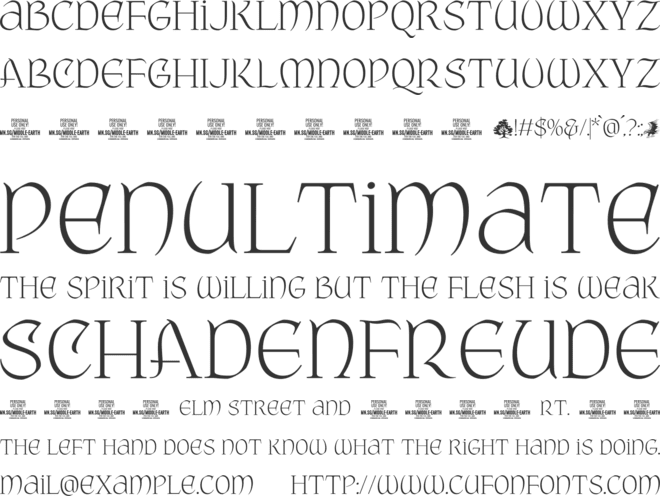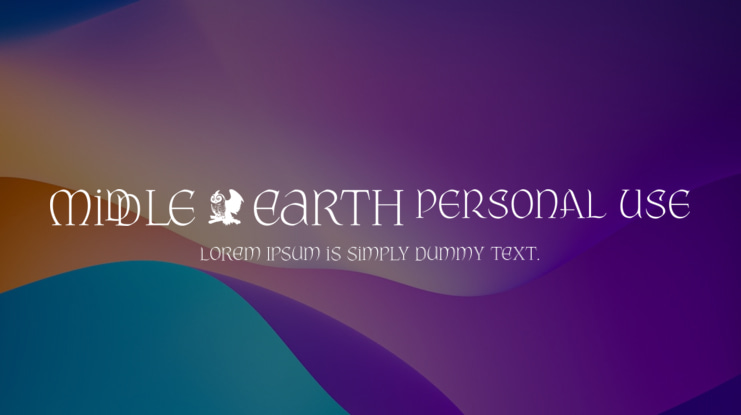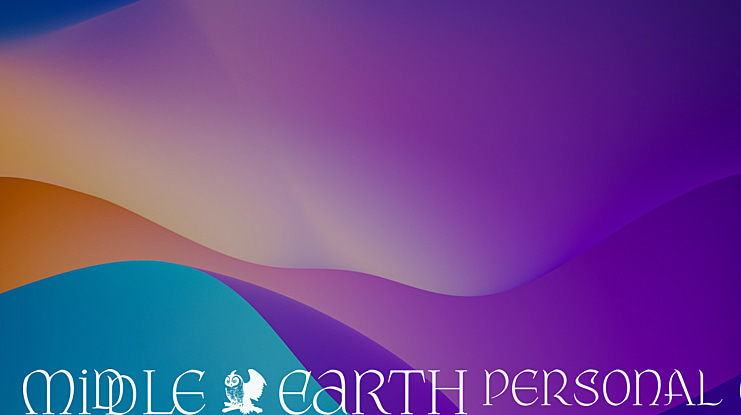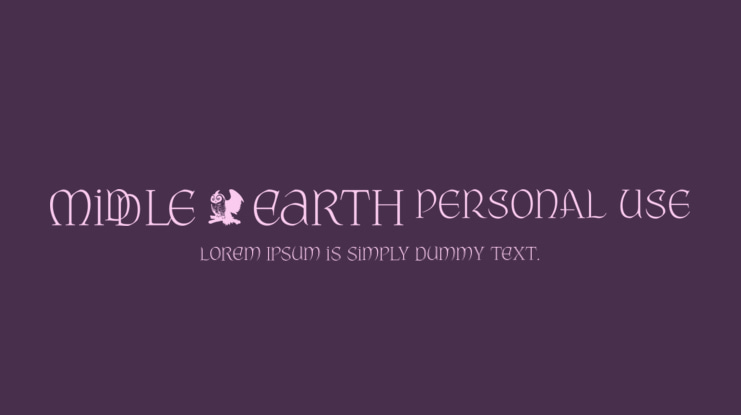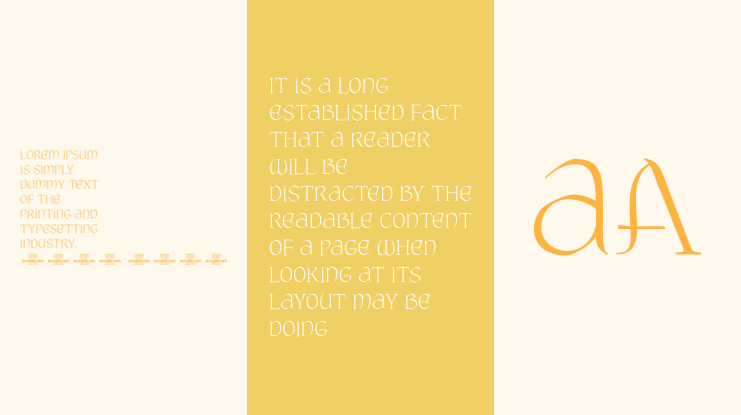
Middle Earth PERSONAL USE Font
The Middle Earth typeface captures the historic charm of ancient manuscripts and the enchanting beauty of elven realms. Its calligraphic allure is enhanced by the rounded contours, reminiscent of the mystical worlds created by Tolkien.
To create symbols such as wolves, eagles, or lions, you can use parentheses characters ( ), curly braces { }, or square brackets [ ].